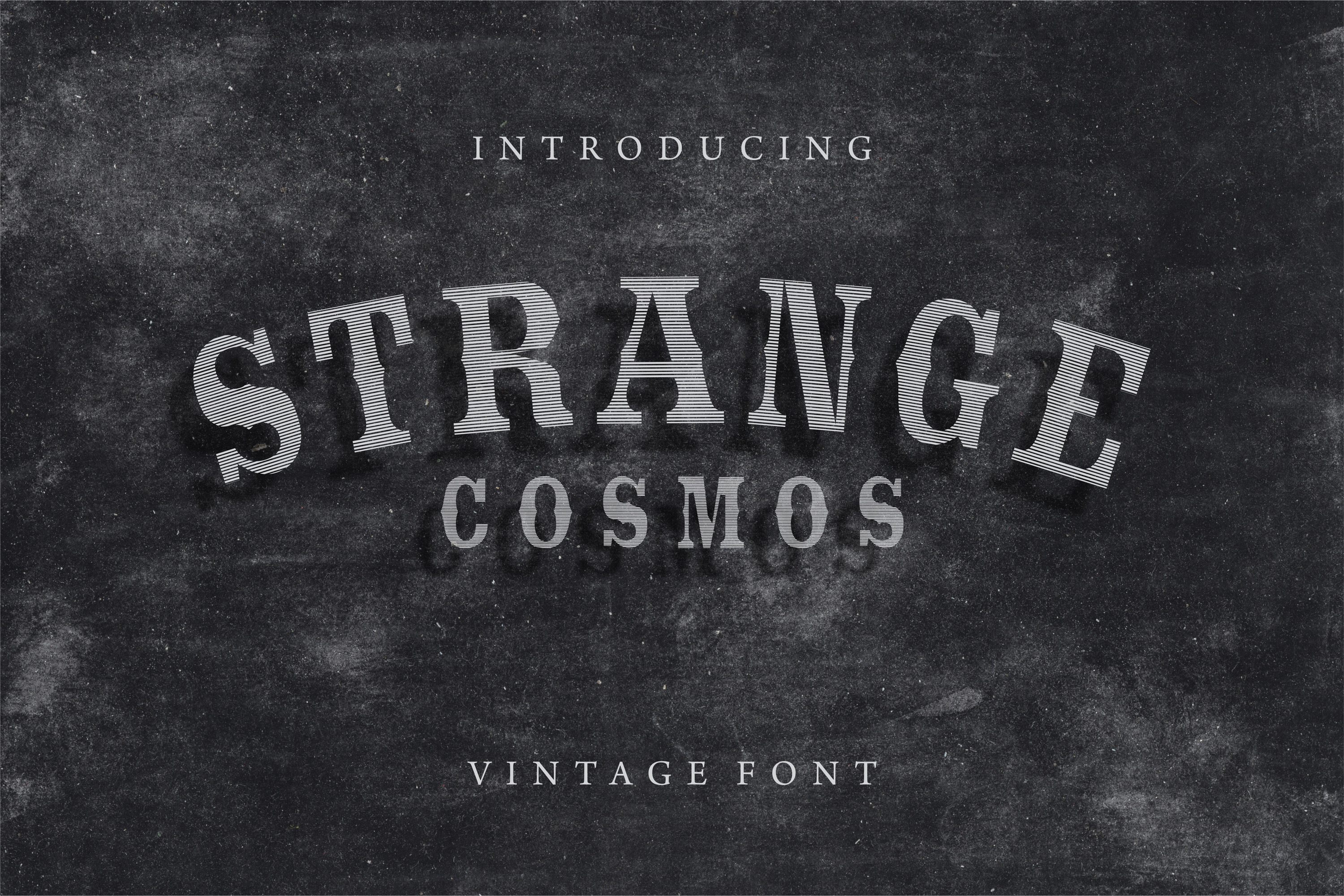
Strange Cosmos Vintage Display Font
Strange Cosmos is a new futuristic discovery in design. The letters are bold and strike through by the million lines. Its fancy like design is compatible with many other fonts families. Please refer to the list of possible uses we have created to help designers with inspiration and add your idea in comments section below.